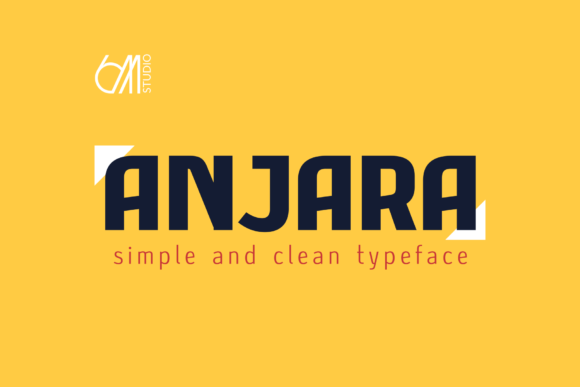
The Birth of a New Era: Introducing Anjara Font
There’s something magical about stepping into a design studio, surrounded by blank canvases and endless possibilities. The air is thick with creativity, and the only thing that matters is bringing your vision to life. It’s moments like these that make me excited to share with you a game-changing font that’s about to revolutionize the way we design – the Anjara Font.
Named after the Javanese word for “new” or “modern”, Anjara Font is a stunning sans serif typeface designed to give your projects a sleek and contemporary look. Its medium contrast makes it effortlessly stand out in any composition, especially its bold version. Whether you’re a seasoned designer or just starting out, Anjara Font is an invaluable addition to your toolkit.
Anjara Font Key Features
- Font Family: Anjara is a multi-script font family, designed to support various languages including Latin, Cyrillic, and Devanagari scripts.
- Font Size: Available in a range of font sizes, including 100, 200, 300, 400, 500, 600, 700, 800, and 900, catering to various design requirements.
- Resolution: Designed to work effectively at resolutions up to 300 DPI, making it suitable for print and digital applications.
- Unique Characteristics: Anjara features a modern, clean, and minimalist design aesthetic, with distinctive geometric shapes and refined typography.
- Language Support: Supports a wide range of languages, including English, Russian, Hindi, and many others, making it an ideal choice for multi-lingual designs.
Anjara Font Review
I’ve had the chance to work with the Anjara font, and I must say it’s an interesting choice for designers.
- The Anjara font has a unique and exotic feel to it, making it perfect for cultural or travel-themed projects.
- The font’s versatility allows it to be used in a variety of contexts, from headings to body text.
- The font’s line quality is smooth and even, making it easy to read.
- The Anjara font may not be the best choice for large blocks of text, as it can start to feel overwhelming.
- The font’s uniqueness may not be to everyone’s taste, and it may not be suitable for projects where a more traditional font is preferred.
- The font’s weight range is somewhat limited, which may make it difficult to create visual hierarchy in some designs.
The Anjara font is a great choice for designers who want to add a touch of uniqueness to their projects. While it may have some limitations, its versatility and exotic feel make it a great option for the right project.
Tips for Getting the Most Out of the Anjara Font
To get the most out of the Anjara font, use it in creative and innovative ways:
- Combine it with bold and italic text for emphasis.
- Use it in headings and titles for a unique look.
- Experiment with different font sizes and styles.
The Anjara font is ideal for:
- Designing logos and branding materials. Alternatives to Anjara Font
- Choose a warm and muted color palette to evoke a sense of nostalgia.
- Use Anjara Font for headings and titles, and pair it with a serif font for body text.
- Experiment with distressed textures and vintage-style illustrations to add depth and character.
- Use a subtle gradient effect to give the brochure a worn, aged look.
- Combine Anjara Font with a vintage-style map or illustration to create a sense of place.
- Experiment with different font sizes and weights to create visual interest and hierarchy.
- Choose a rich and luxurious color palette to match the brand’s high-end image.
- Use Anjara Font as the primary font for the brand’s logo and marketing materials.
- Pair Anjara Font with a clean and modern sans-serif font for body text to create contrast and visual interest.